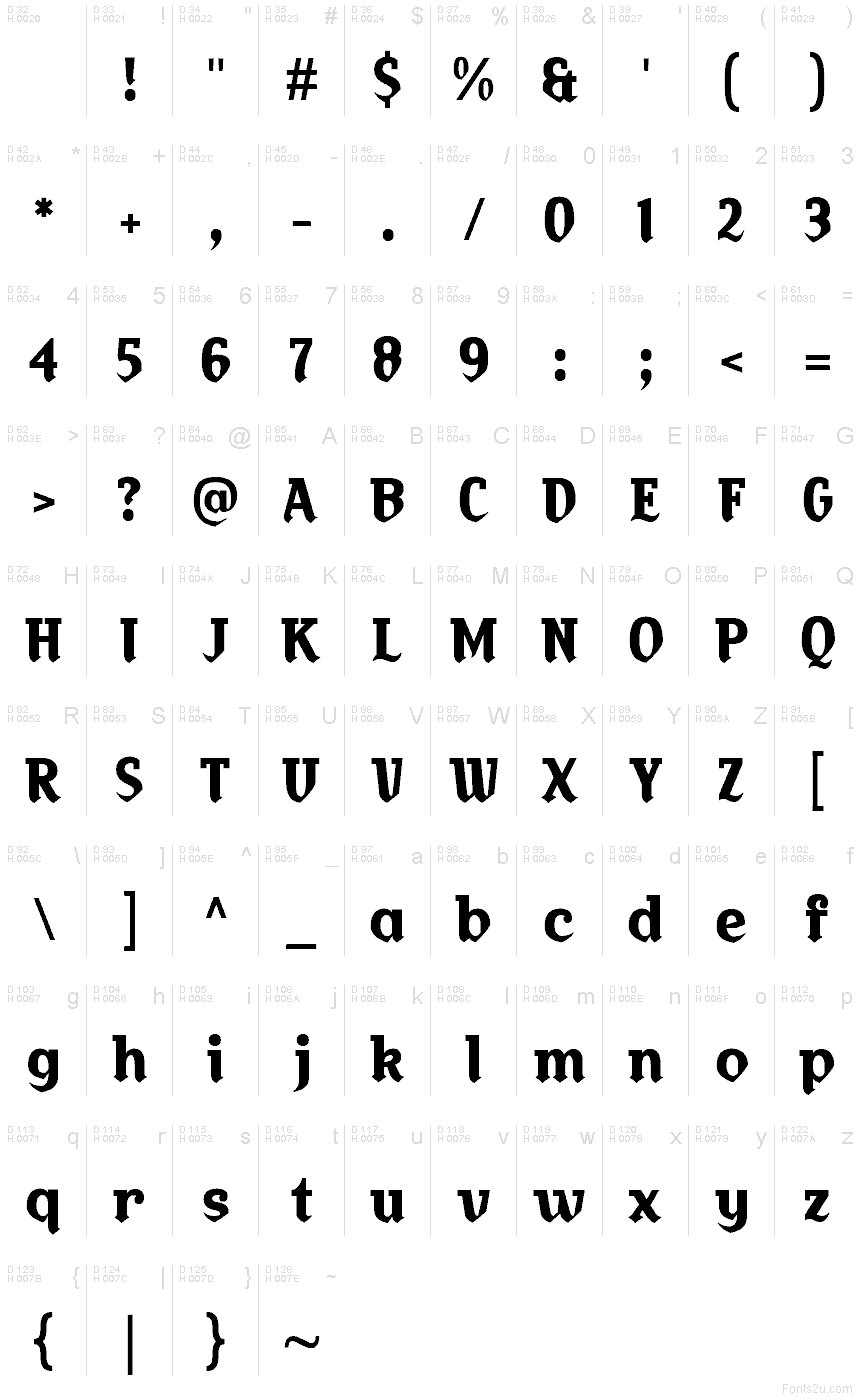
Lethalik font by Faqih Fawaji of Drizy Studio is a free Halloween display font. Its chunky, chiseled letterforms feel hand-carved-broad strokes, scalloped feet, and sly, dagger-like angles that read spooky without getting messy. The weight lands with a satisfying thud, while the curves keep it playful, so headlines snap into place and remain legible at a glance.
Using Lethalik, you can conjure bold posters, trick-or-treat bags, haunted attraction signage, party invites, seasonal banners, thumbnails, and merch that needs a touch of mischief. This free font shines on big, high-contrast layouts; keep tracking tight for a dense, movie-title vibe. Pair with a clean geometric sans for body copy to let the eerie shapes take center stage.